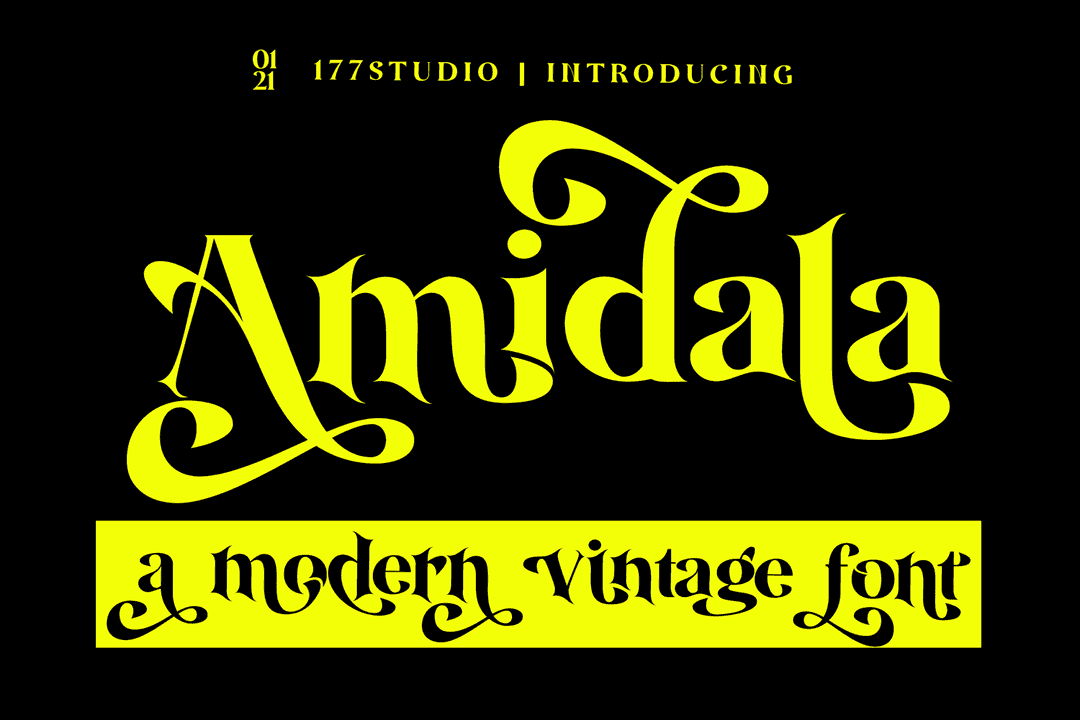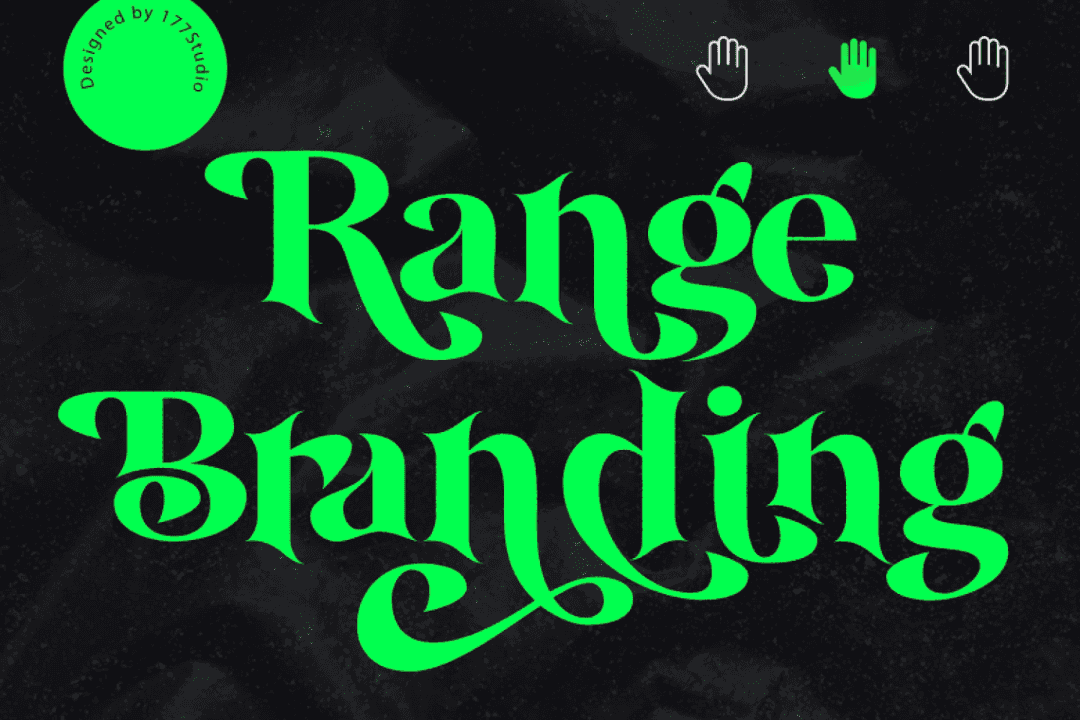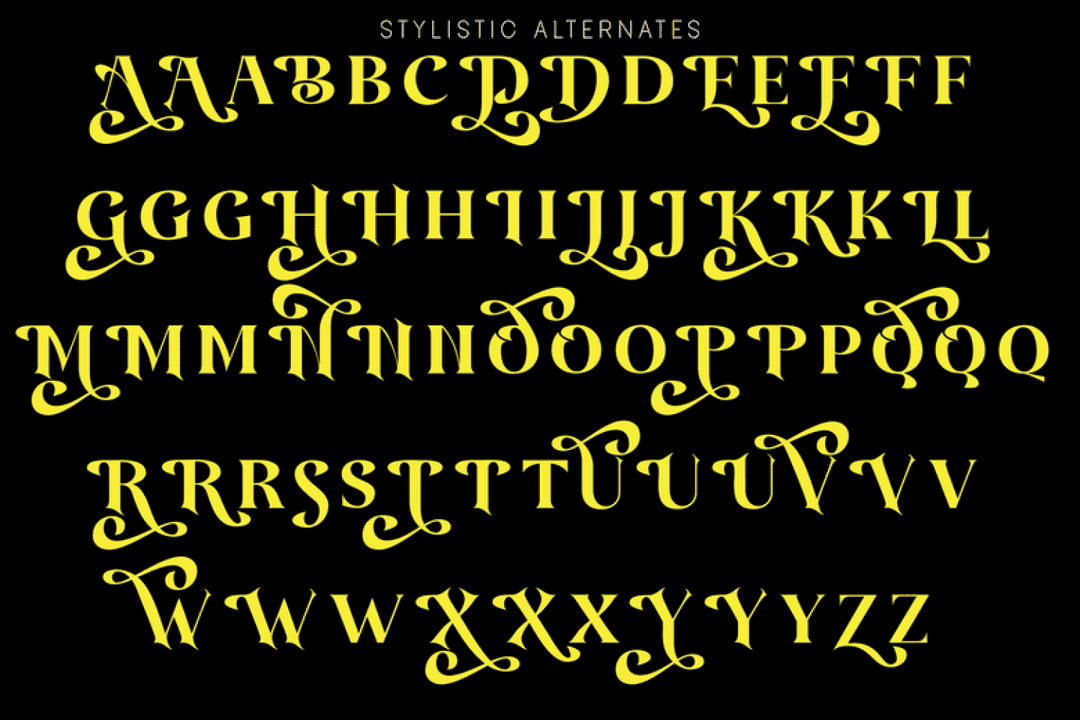
Amidala is a beautiful modern font that falls somewhere between vintage and modern styling, it is designed to give the impression of being an interesting, fun, fancy unique and versatile classical serif font. The font Among the many beautiful ligatures, special alternate glyphs, ornaments and multilingual support,